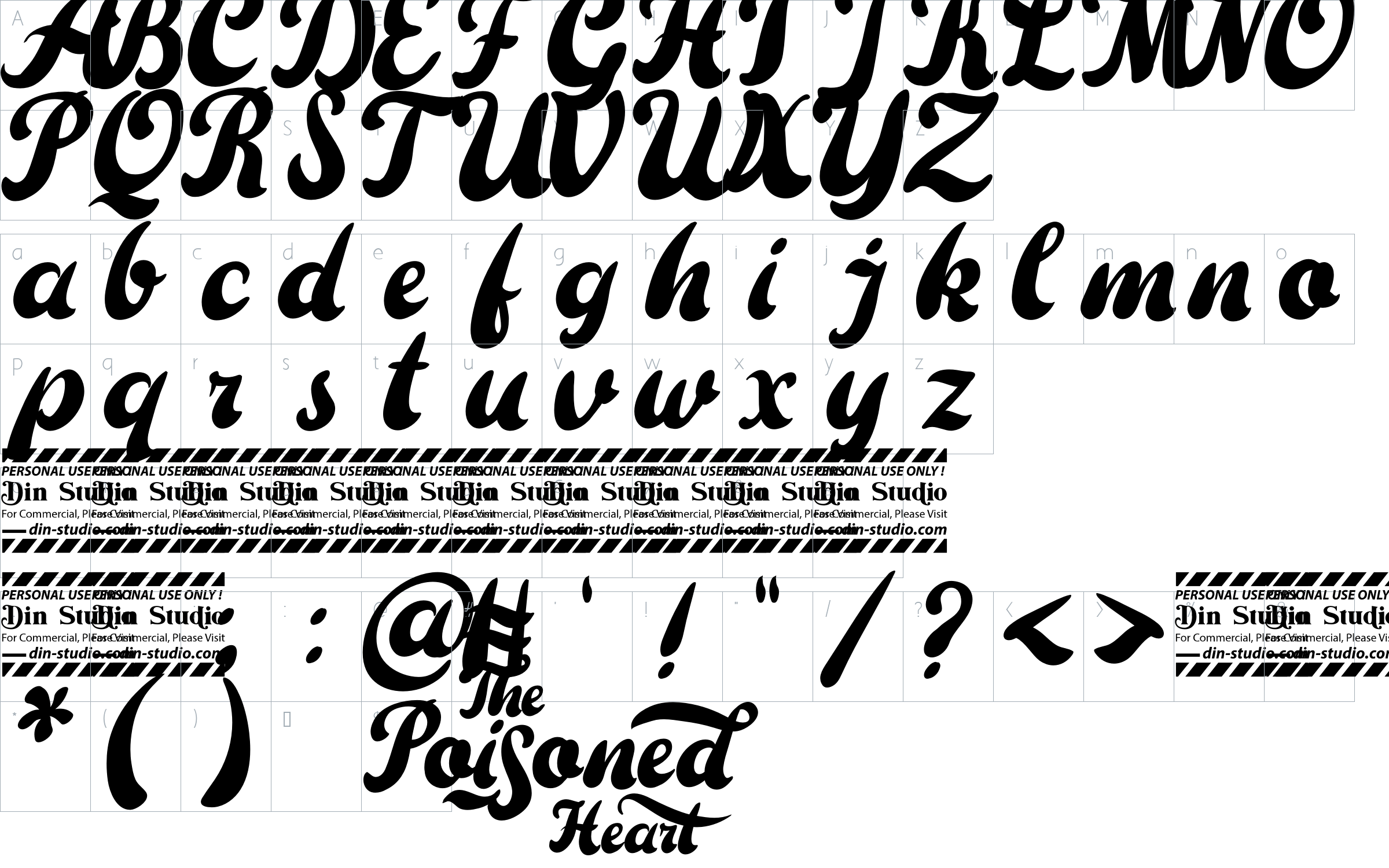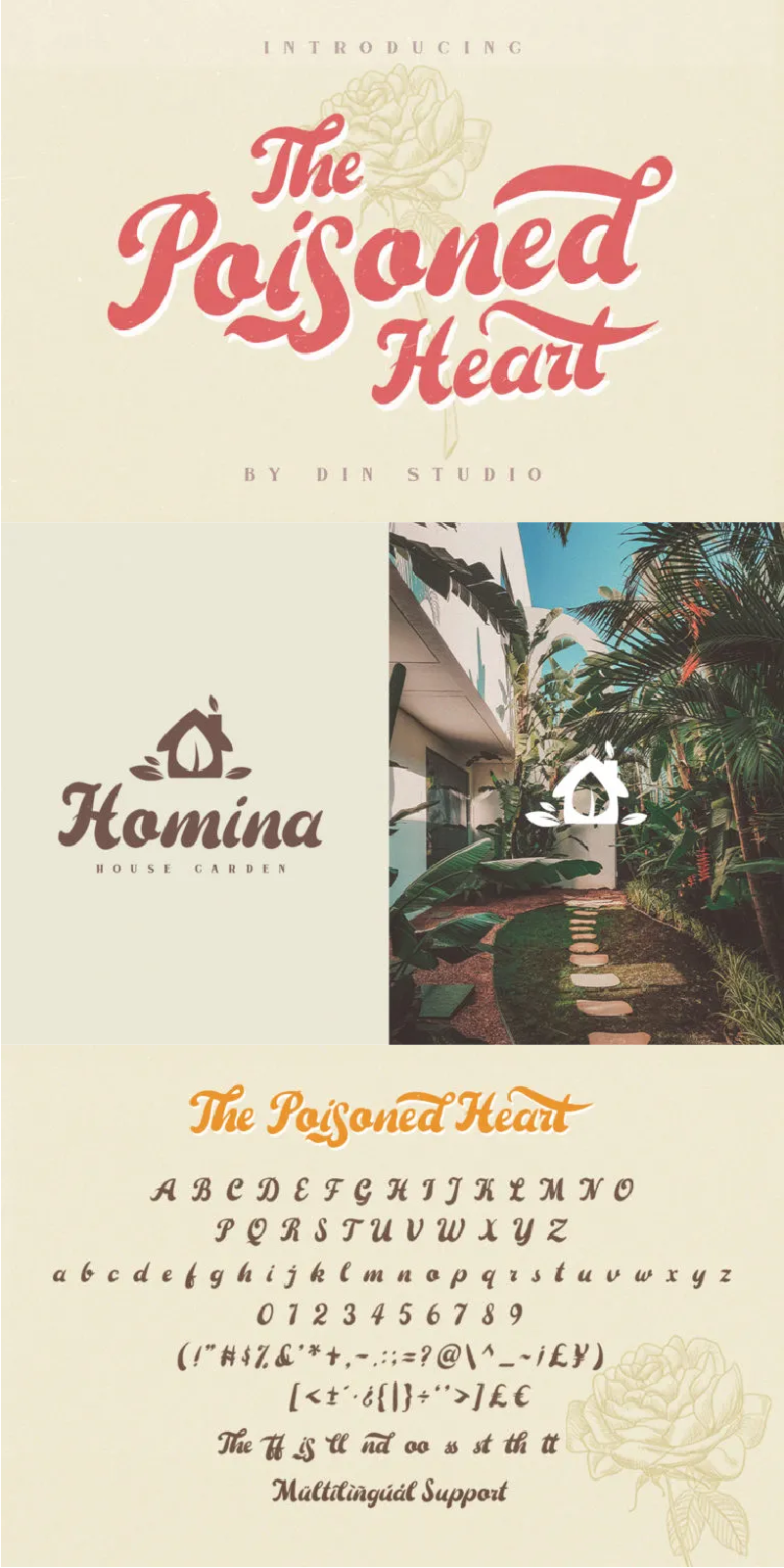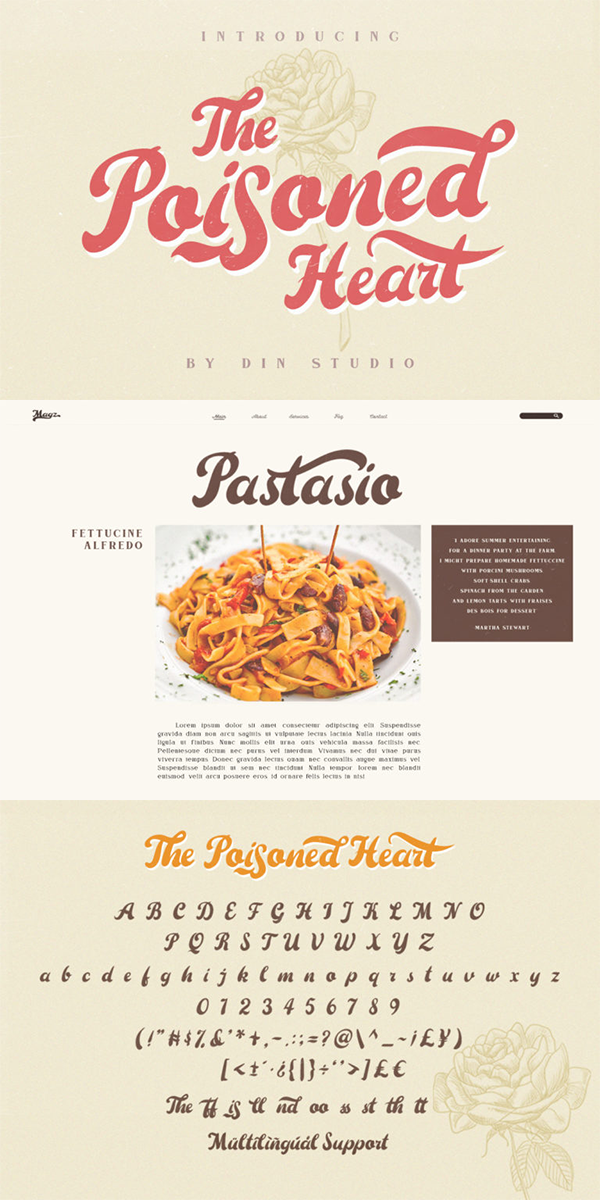
The Paisoned Heart Font
About The Paisoned Heart
The Poisoned Heart Script. The beautiful retro script. Made with naturally handwritten. The font will make your design more beautiful and powerful. This font is suitable for any design like branding, quotes, wedding invitation, lettering project and etc.
-76 Alternates
-Accents (Multilingual Characters)
-10 Ligatures
-Numerals and Punctuation (OpenType Standard)